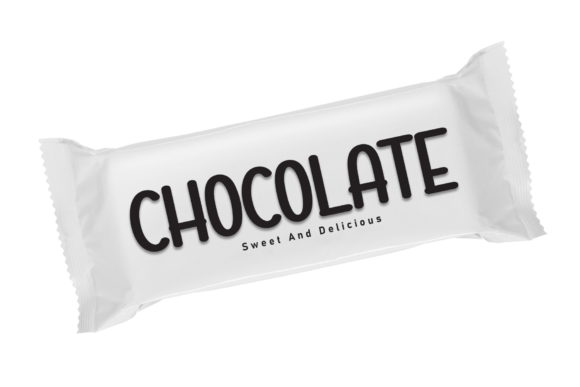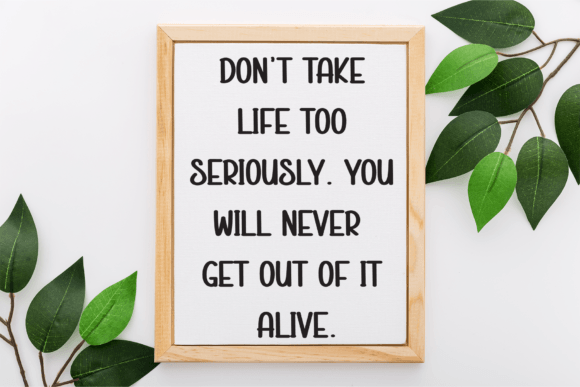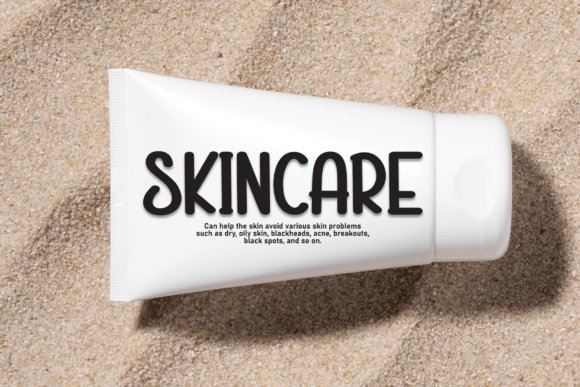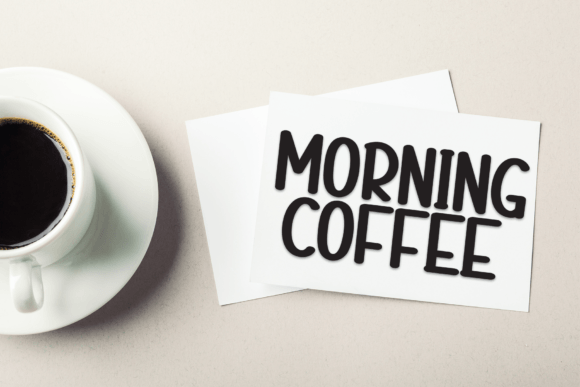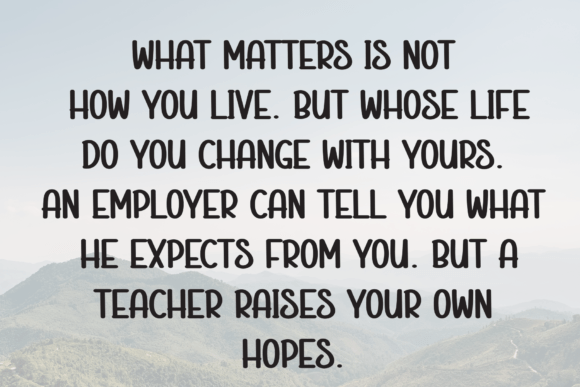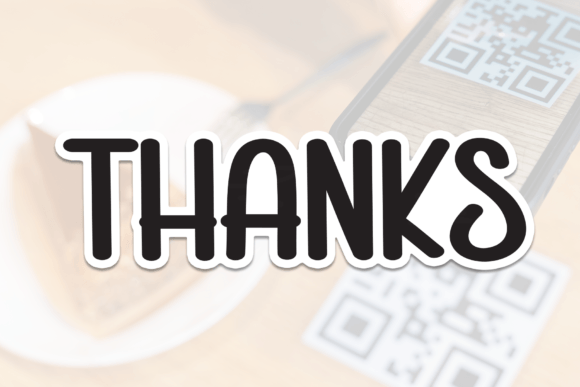
Introduction to Smart Scan Font
Have you ever been in the middle of a creative project, staring blankly at a blank canvas, wondering where to start? The spark of inspiration is there, but it needs a little nudge to set it off. For designers, this is a common scenario. But what if you had the perfect tool to give that spark the boost it needs? Enter the Smart Scan Font, a high-quality, free download that’s about to revolutionize your design process.
This sweet and friendly handwritten font is the perfect addition to any design project. Its natural and unique style makes it incredibly fitting to a wide range of creative endeavors, from logos to social media graphics. And the best part? With a transparent background, you can easily incorporate it into any design without worrying about clutter.
Key Features of Smart Scan Font
- Designed with a unique, modern aesthetic, making it an excellent design resource for contemporary projects.
- Supports various font sizes and styles, ideal for headings, titles, and body text in digital and print media.
Honest Review: Smart Scan Font
As a designer, I’m always on the lookout for high-quality design resources to elevate my creative projects. I recently stumbled upon the Smart Scan Font, and I’m excited to share my honest review with you.
- ✨ The font is incredibly versatile and can be used for a variety of design projects, from logos to brochures.
- ✨ The transparent background is a nice touch, allowing for seamless integration with other design elements.
- ⚠️ The font is a bit limited in terms of character sets, which may not be ideal for projects requiring a wide range of characters.
- ⚠️ The font may not be suitable for small-scale designs, as the details can get lost.
Overall, I’m impressed with the Smart Scan Font. While it may have some limitations, its high quality and versatility make it a valuable addition to any designer’s toolkit. If you’re looking for a reliable font for your next creative project, I’d definitely recommend giving it a try.
Tips for Getting the Most Out of Smart Scan Font
For best results, use Smart Scan Font in combination with a high-quality image or graphic. You can also experiment with different font sizes and colors to create a unique and eye-catching design.
Smart Scan Font is perfect for creating visually appealing presentations, social media graphics, and advertisements. You can also use the font to create custom labels, posters, and flyers.